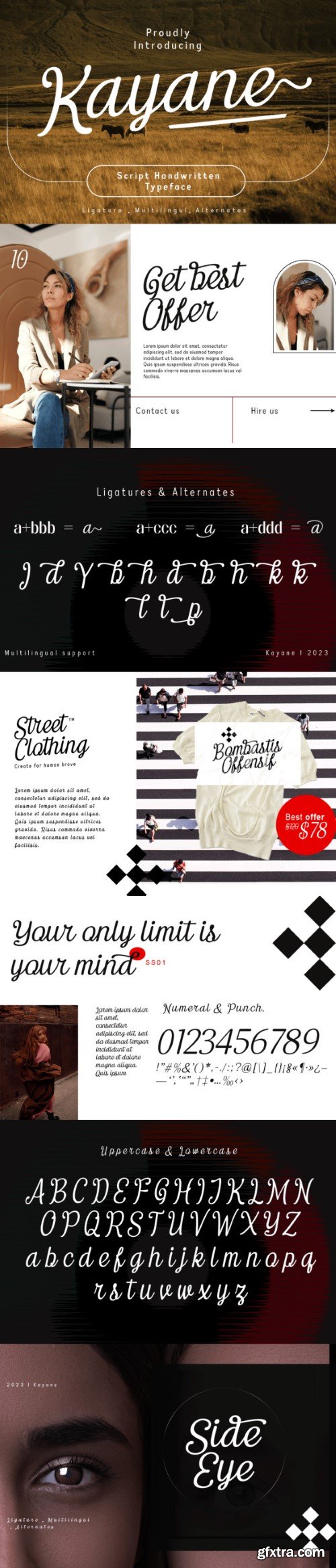
凯亚娜字体
Step into the world of elegance and luxury with Kayane, an exceptional script font crafted for artistic individuals. Kayane is a remarkable choice for an array of design projects including, but not confined to sophisticated branding ventures, heartfelt greeting cards, and unforgettable wedding invitations. Immerse your design project in an aura of refinement and class with the unmistakable flourish and exquisite details of the Kayane script font. Elevate, magnify and distinguish your next design endeavor with this unique typographical tool.